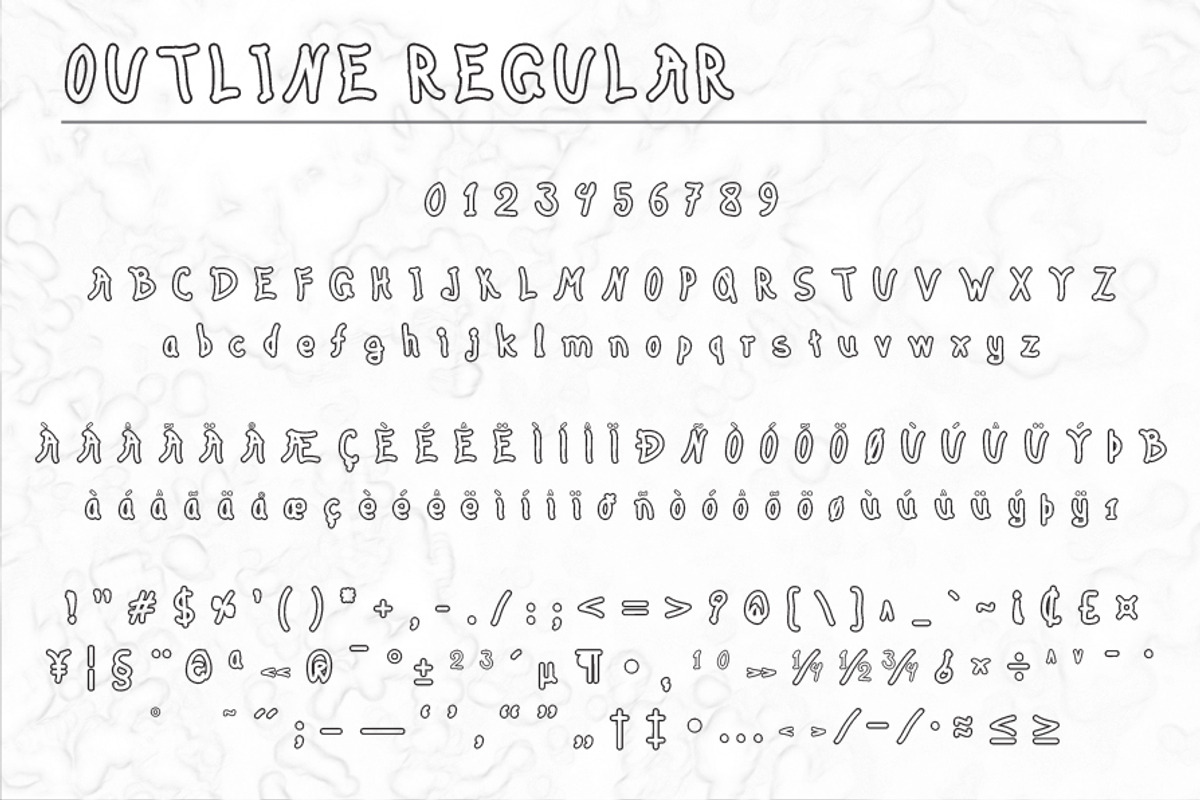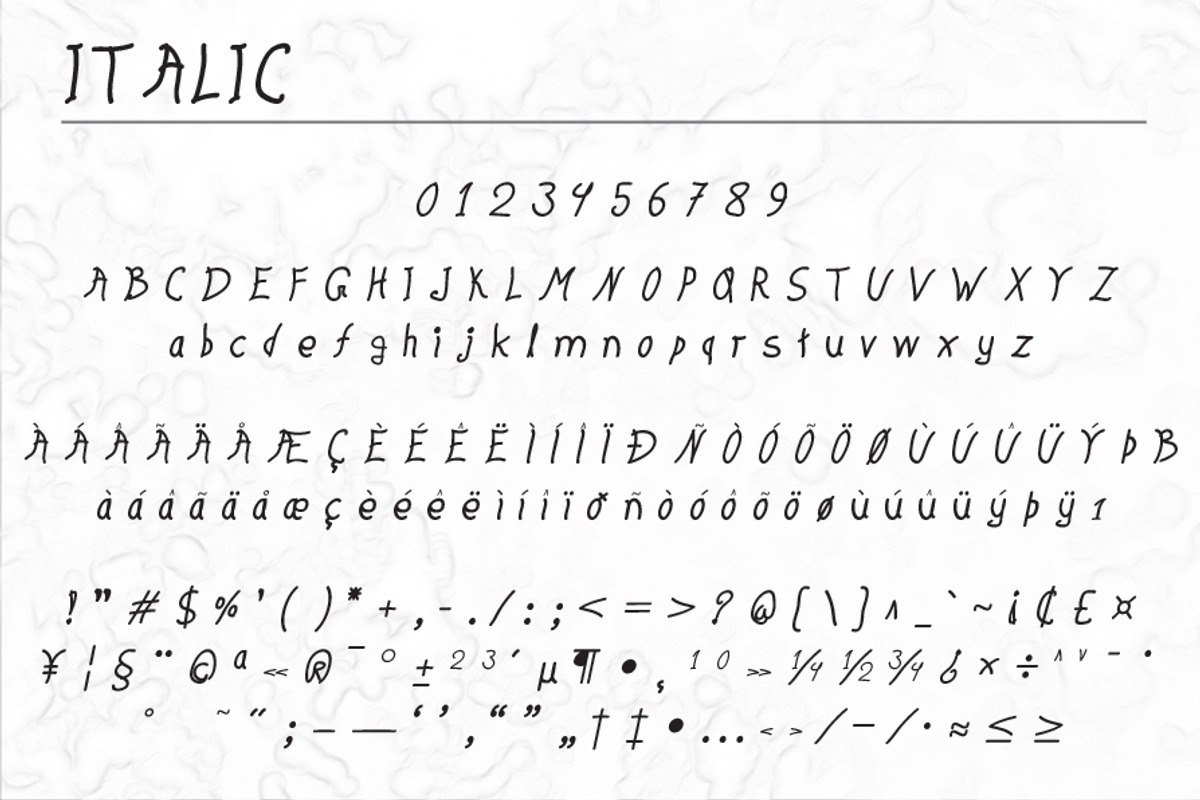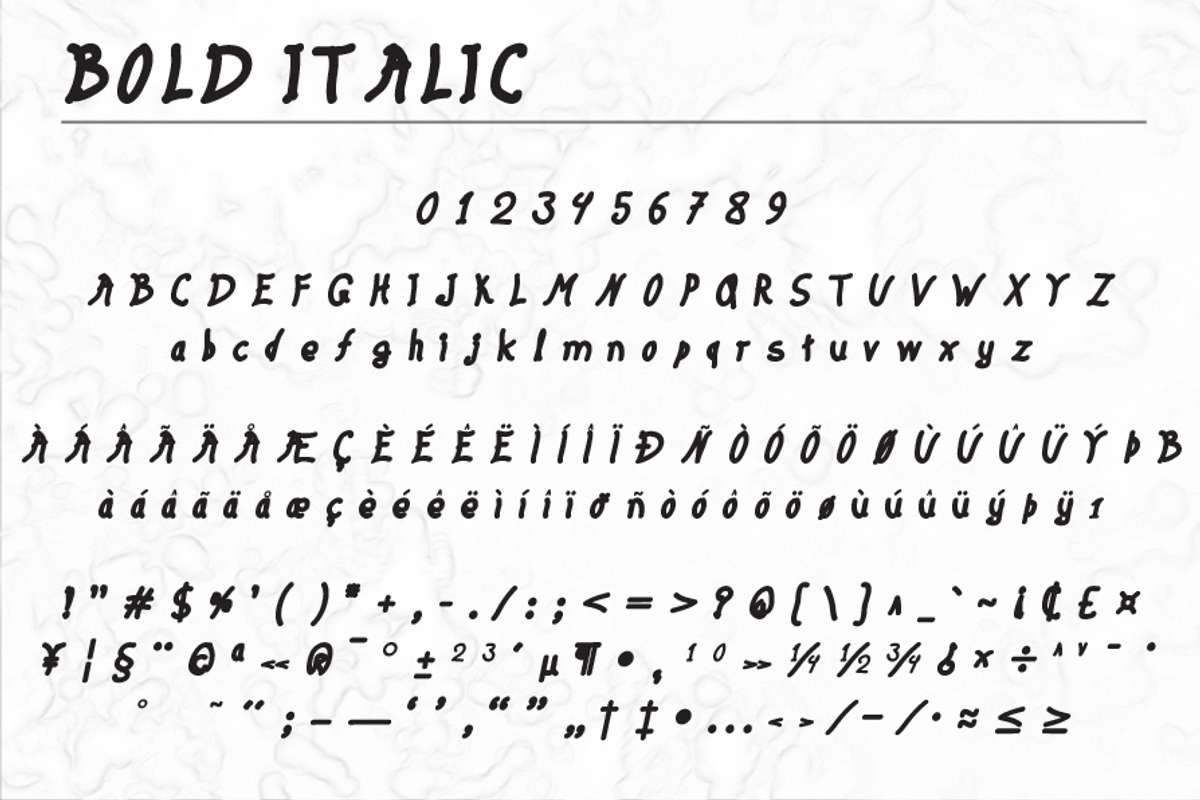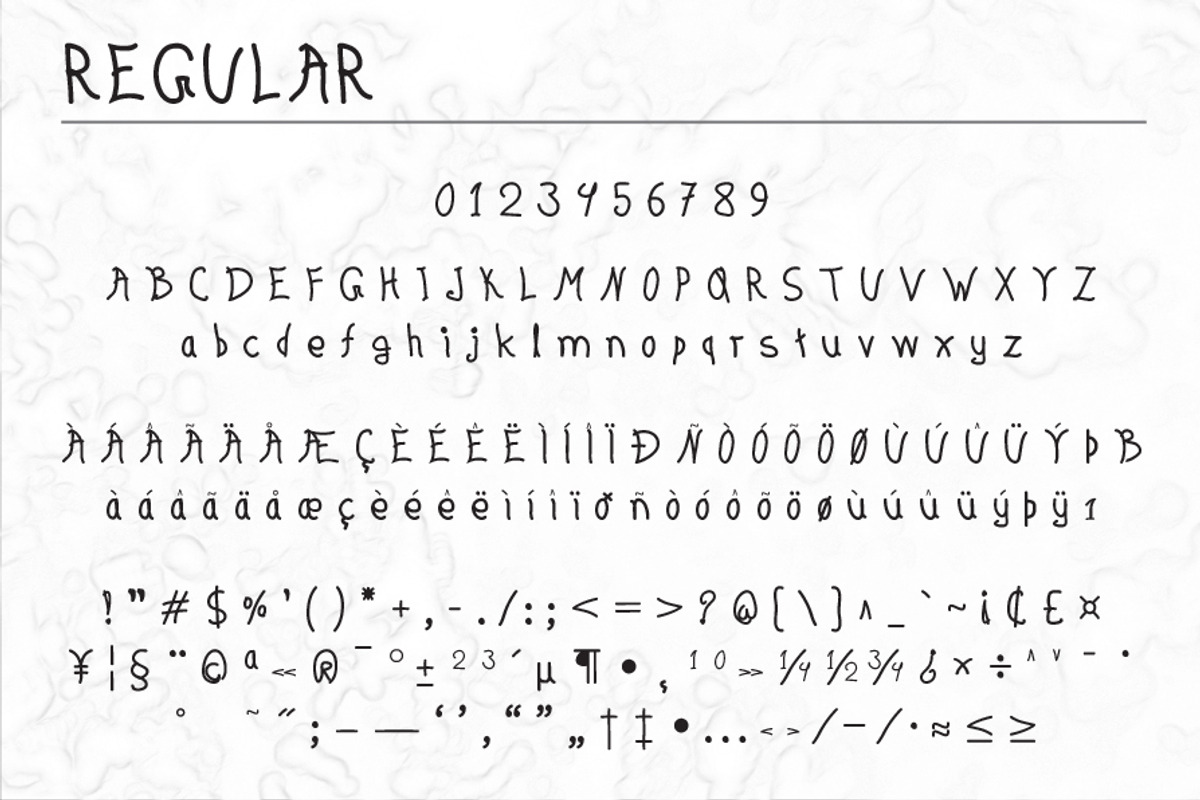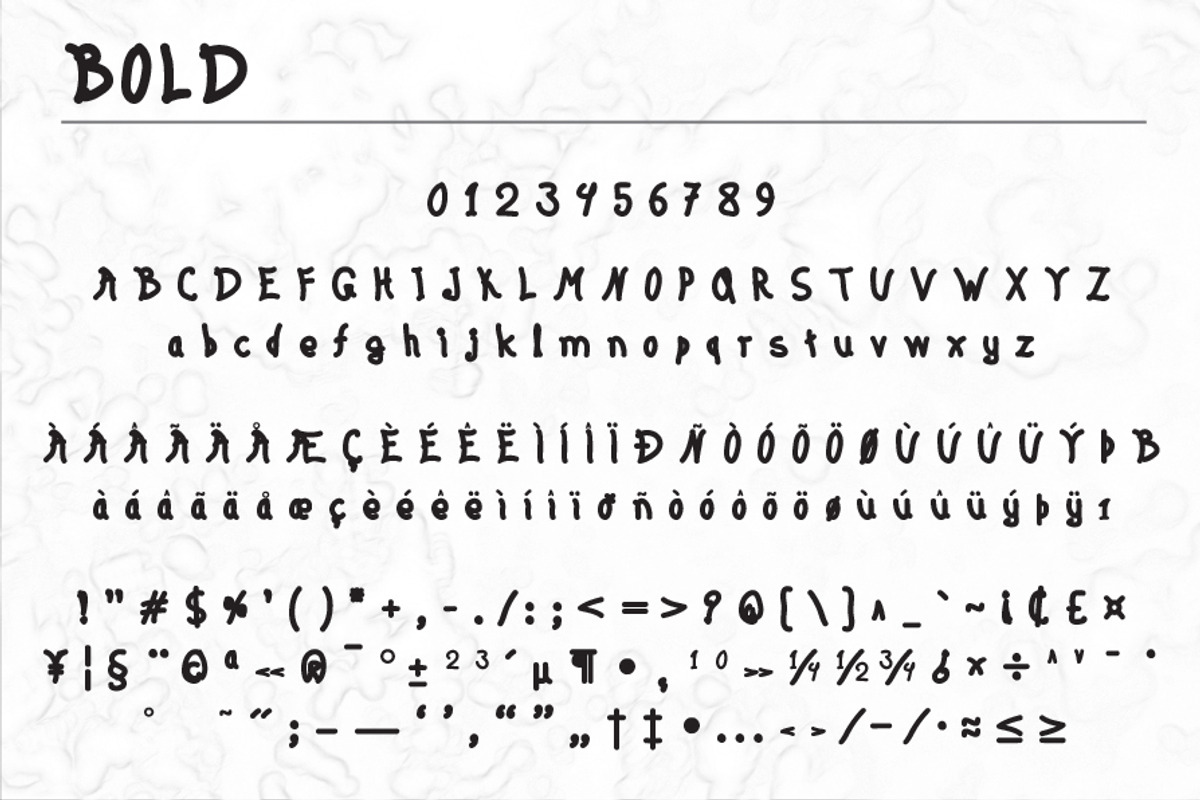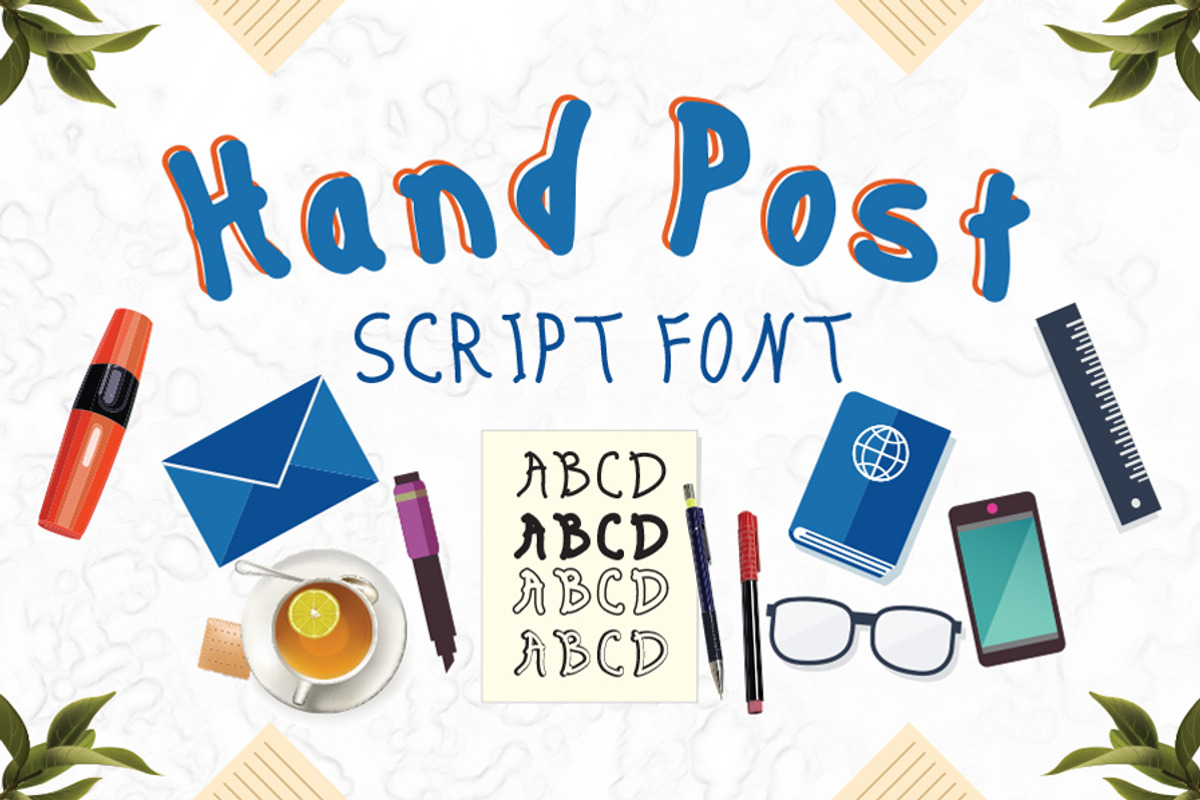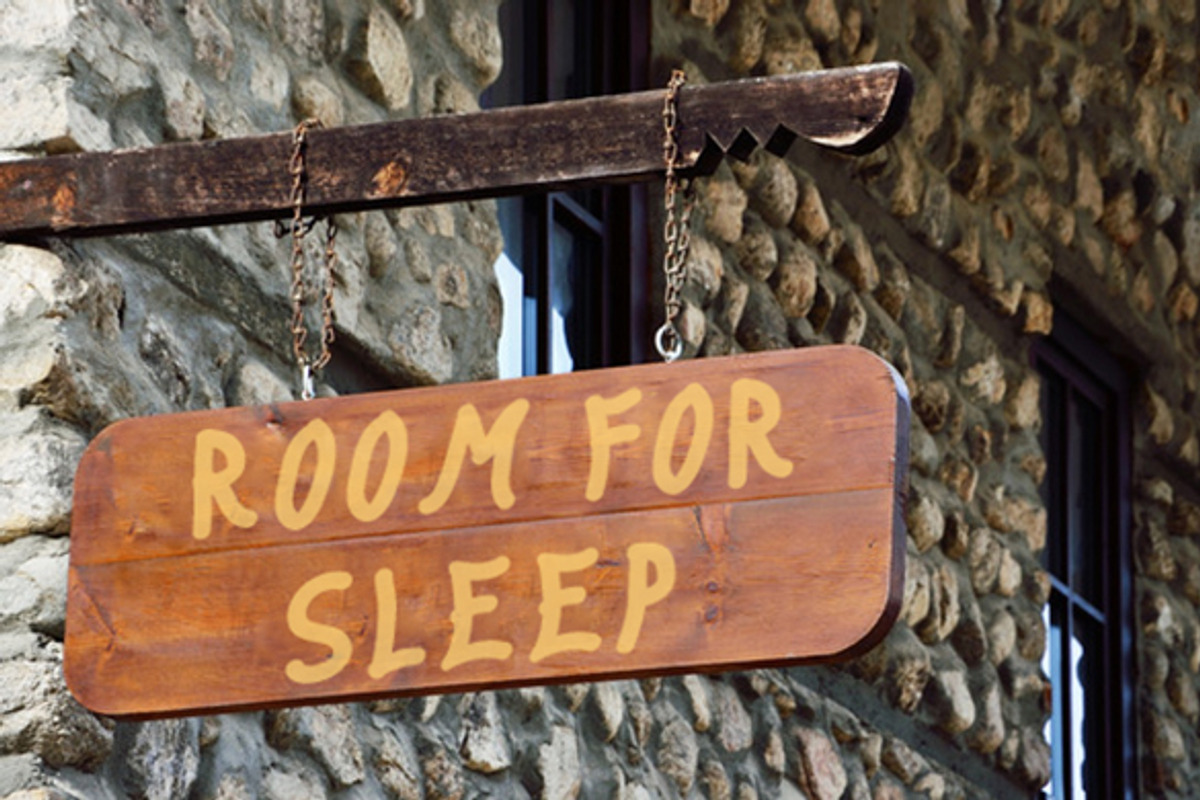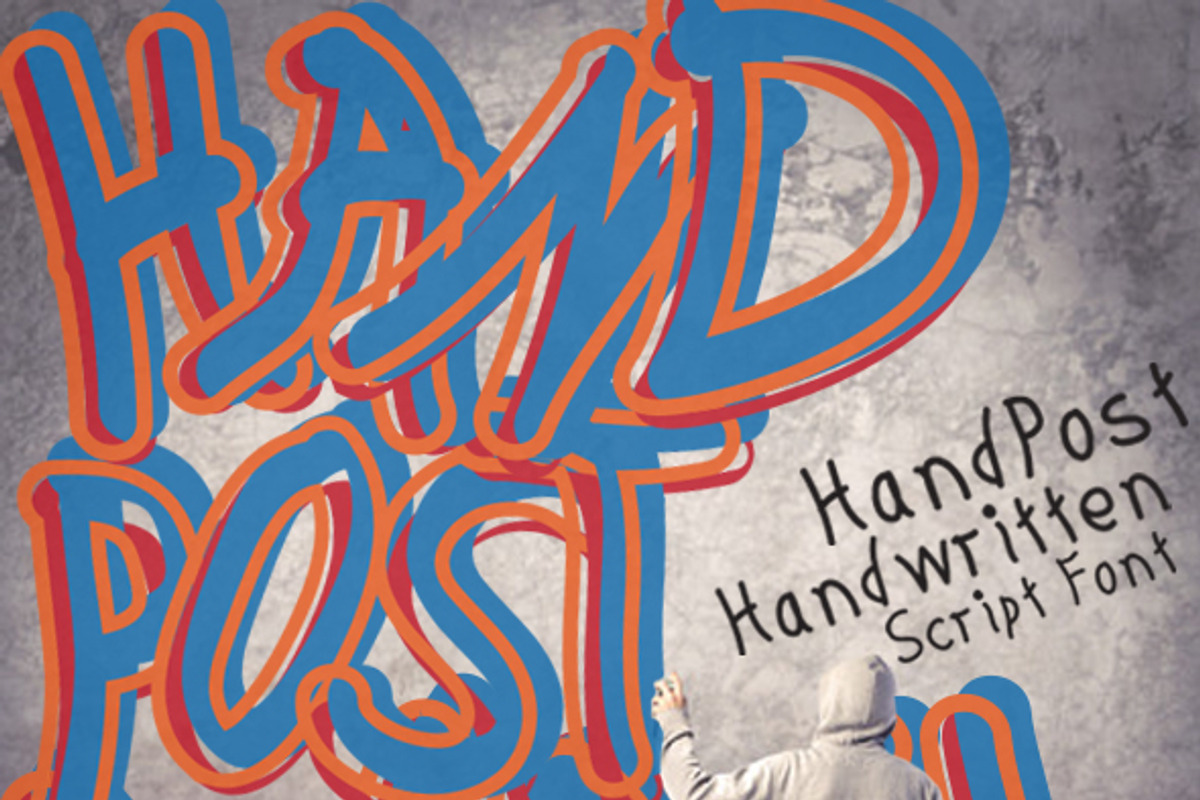
Hand Post 10 Fonts
Hand Post 10 Fonts by Emdaduljs is a font selected for branding, posters, packaging, typography.
- Available in Regular, Italic, Bold, Bold Italic, Outline, Outline Italic, Outline Bold, Outline Bold Italic, 3D and 3D Italic with 215 chara
Why Hand Post 10 Fonts is worth a look
Hand Post 10 Fonts by Emdaduljs fits naturally into Branding, posters, packaging, typography.